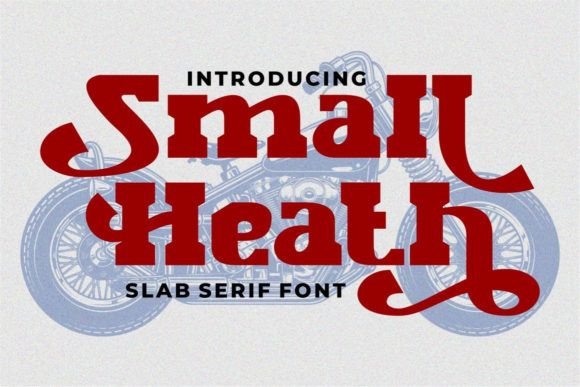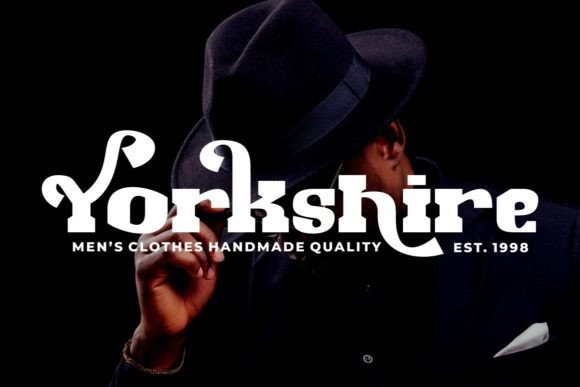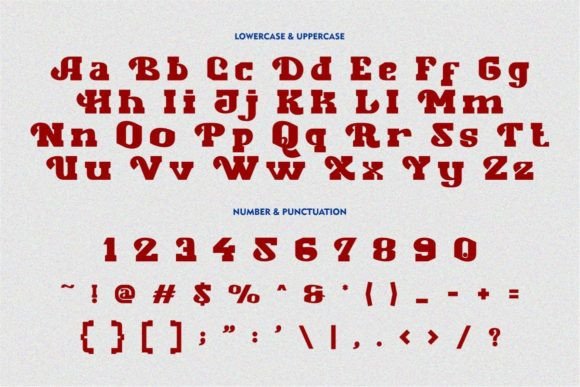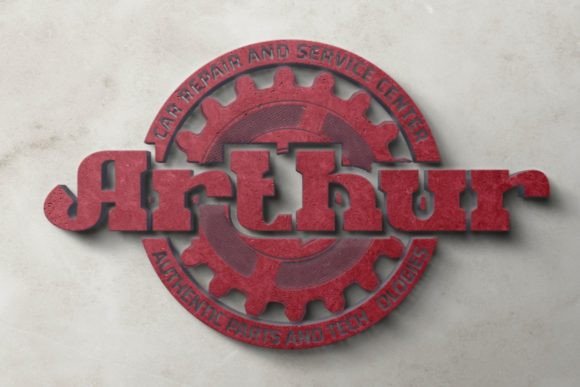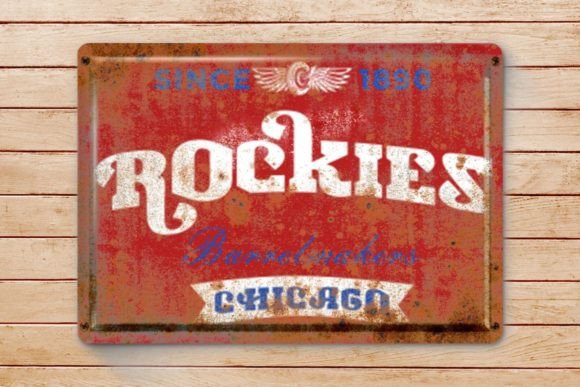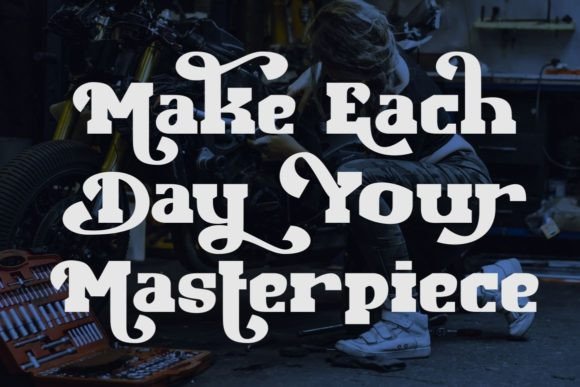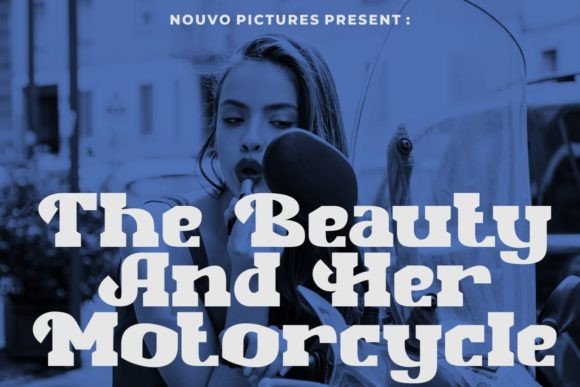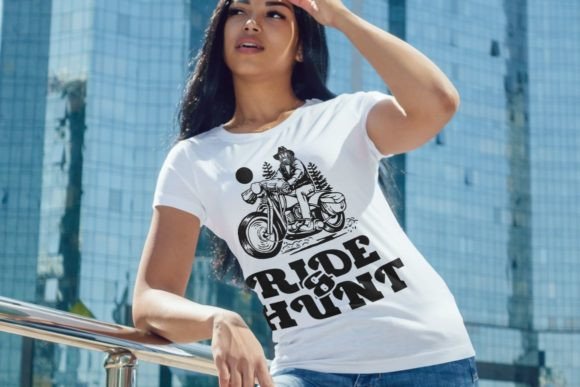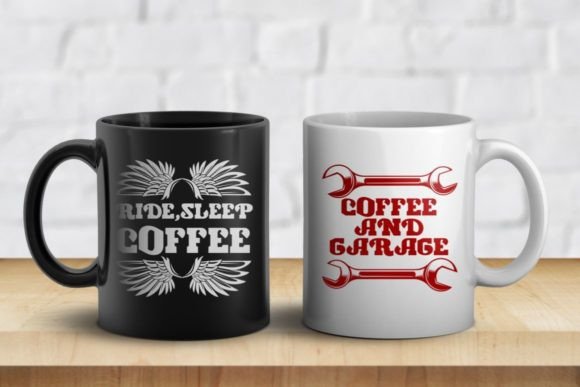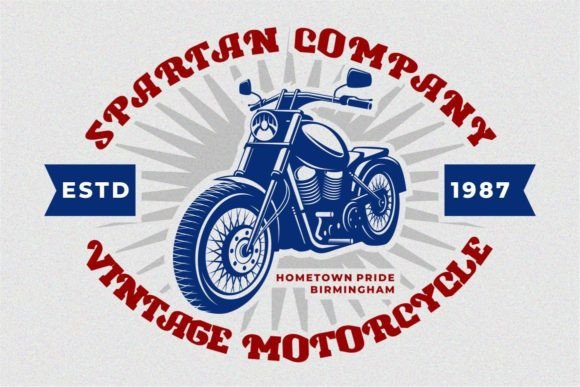
Small Heath
Small Heath: A Cool and Unique Slab Serif Font
Small Heath is a cool and unique slab serif font that has been masterfully designed to elevate creative projects. This PUA-encoded typeface provides easy access to all glyphs and ligatures, making it a versatile tool for bringing designs to the highest level.
Key Features of Small Heath
• Cool Design: Offers distinctive and engaging letterforms.
• PUA Encoded: Provides easy access to all glyphs and ligatures[3].
• Unique Style: Features masterfully crafted character.
• Creative Potential: Elevates designs to new heights.
When using Small Heath in your designs, keep these tips in mind:
• Access all special characters through character mapping thanks to PUA encoding[3].
• Use different sizes to highlight its unique features[2].
• Take advantage of easy ligature access for enhanced designs[3].
• Let its cool character bring creative ideas to life.
Technical Advantages
Small Heath’s PUA encoding brings several benefits to designers:
• Easy access to all characters through character maps[3].
• Ability to use special features in non-professional software[3].
• Access to all glyphs without needing specialized design programs[3].
• Seamless integration of creative elements[3].
To sum up, Small Heath is an excellent choice for designers seeking a cool and unique slab serif font with enhanced accessibility. Its PUA encoding ensures that all its special features are easily accessible, while its masterful design makes it perfect for elevating creative projects to new heights.
Furthermore, Small Heath’s distinctive design allows it to shine in contexts where both uniqueness and accessibility are key. The font’s PUA encoding ensures that users can access all its special features regardless of their software, making it a truly versatile tool for creative expression[3].
In conclusion, Small Heath truly captures the essence of accessible creativity in slab serif typography. Its combination of cool design and technical accessibility shows how well it can serve various creative needs. Therefore, for those wanting to bring their creative ideas to the highest level, Small Heath offers the perfect blend of style and functionality.